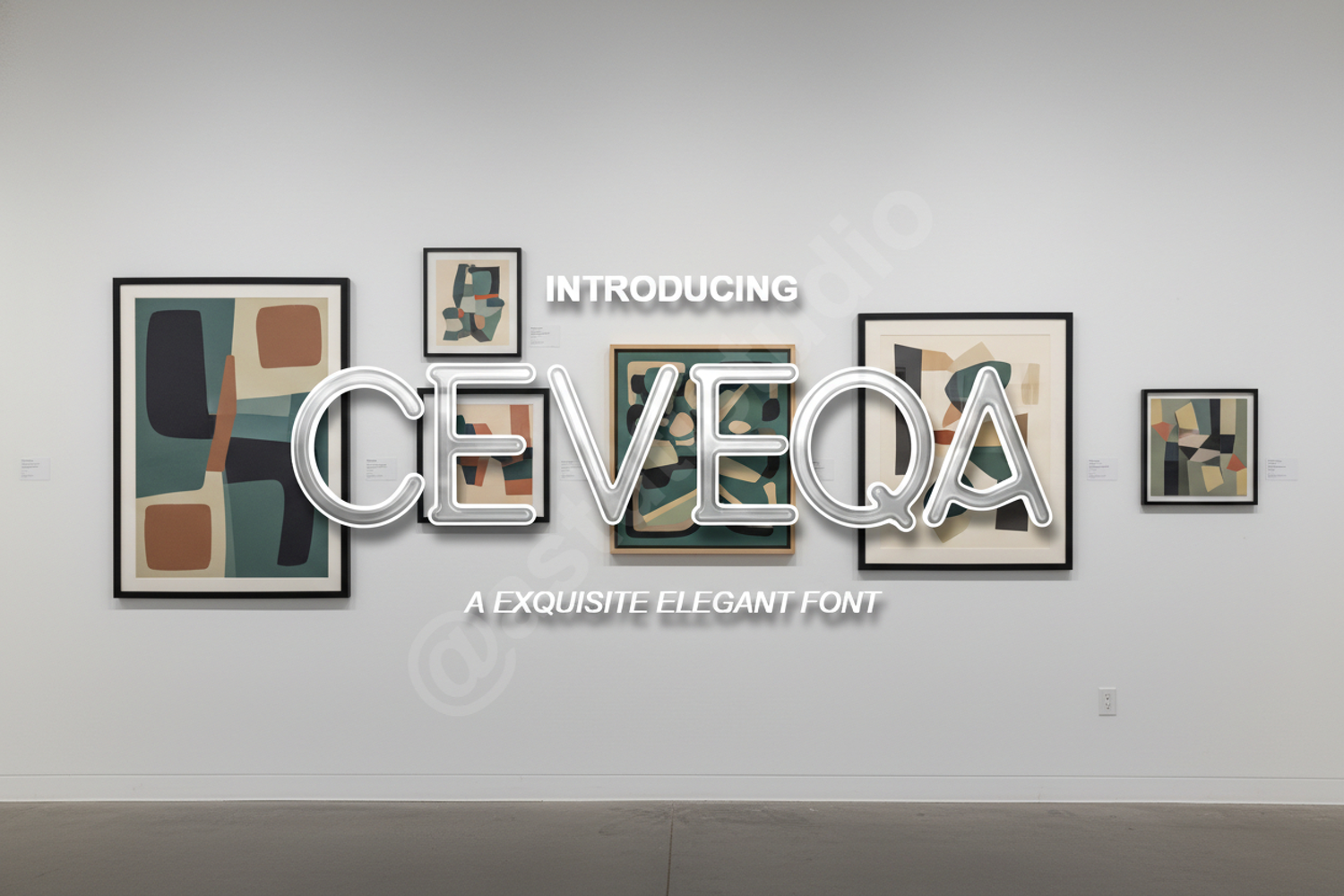
Ceveqa | Elegant Luxury Serif Typeface
Ceveqa
Ceveqa is a premium serif font that embodies sophistication and timeless elegance. Crafted with meticulous attention to detail, this typeface features clean lines and balanced proportions, making it a perfect choice for designers looking to elevate their creative projects. Whether you are working on a minimalist brand identity or a high-fashion editorial, Ceveqa provides the versatility and professional polish you need to make a lasting impression.
- Luxury Branding and Logos: Create a high-end visual identity that stands out in a crowded market.
- Wedding Invitations: Add a touch of class and romance to stationery and event materials.
- Editorial Design: Perfect for magazine headers, book covers, and sophisticated layouts.
- Social Media Graphics: Elevate your digital presence with clean and professional typography.
- Packaging Design: Ideal for premium product labels, cosmetic boxes, and boutique tags.